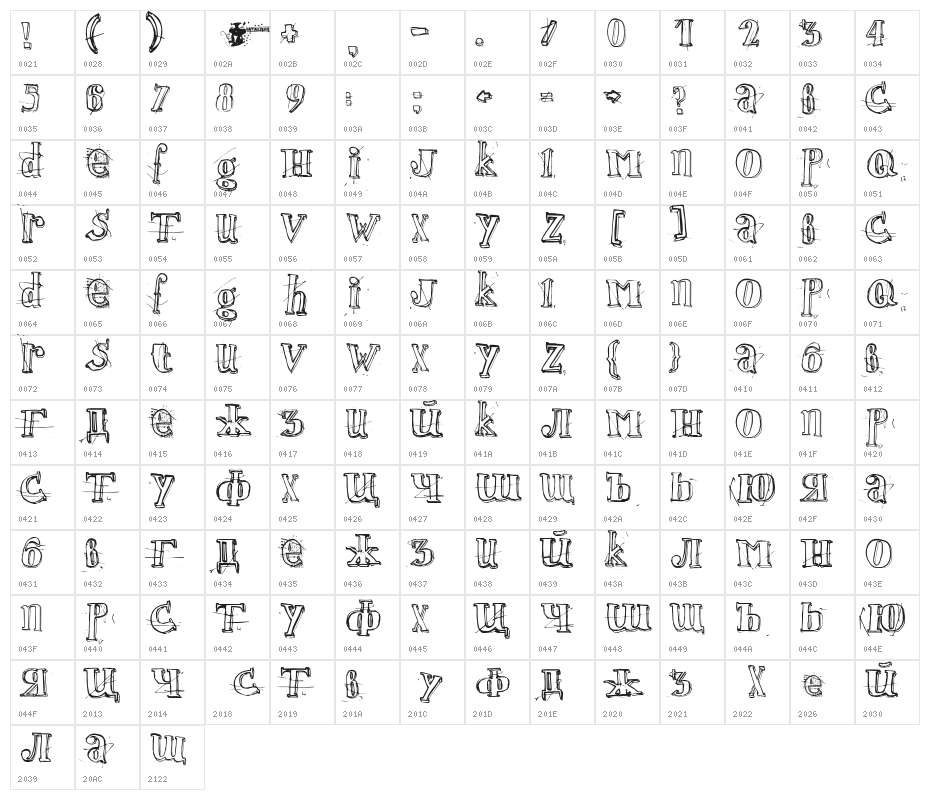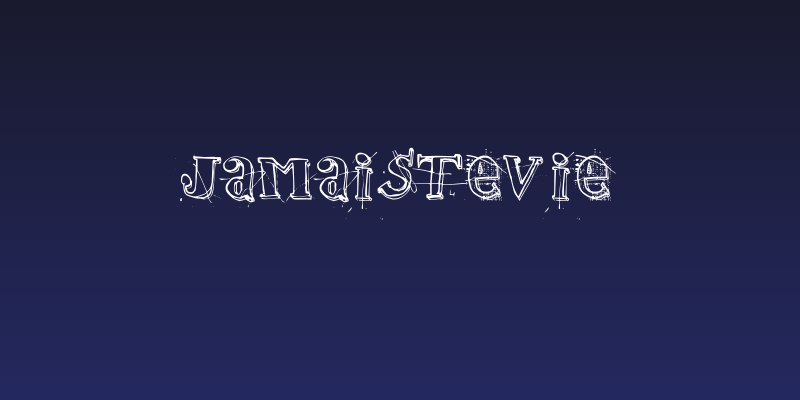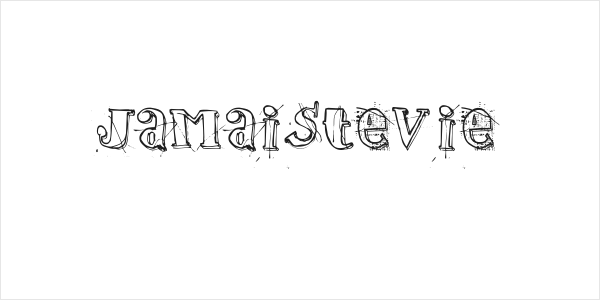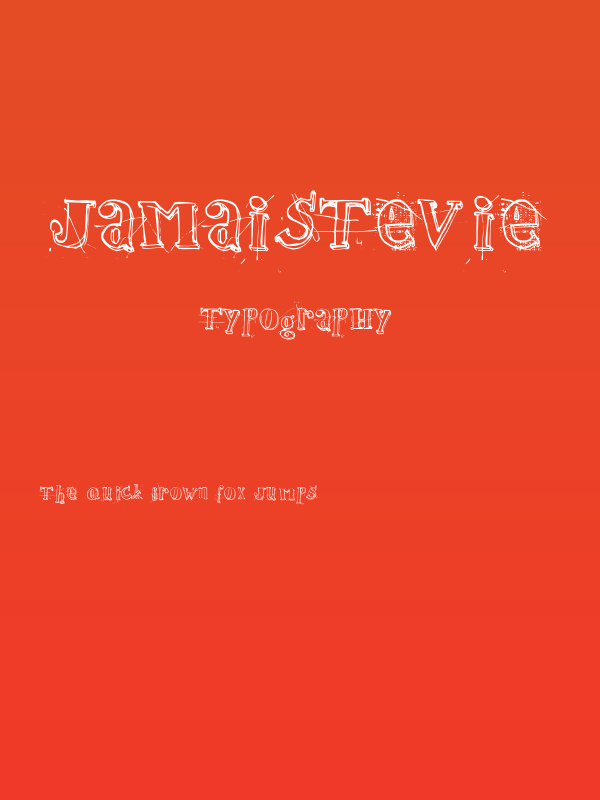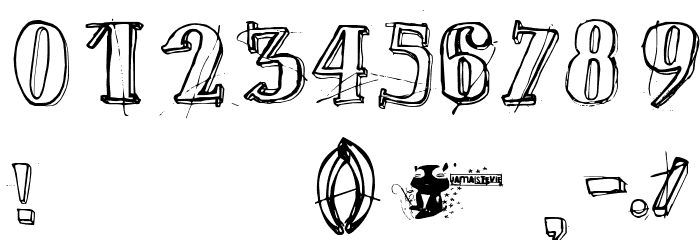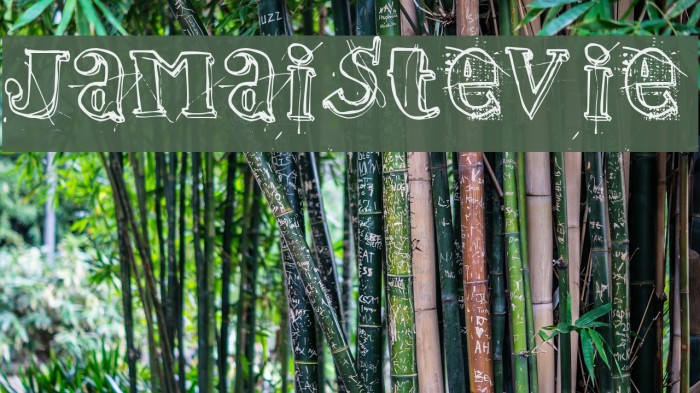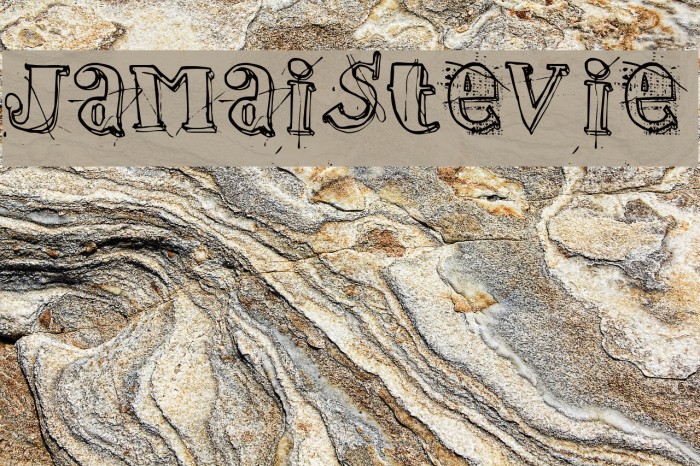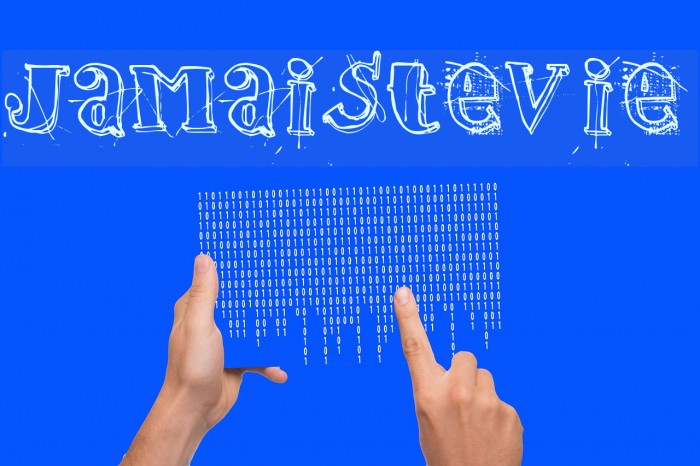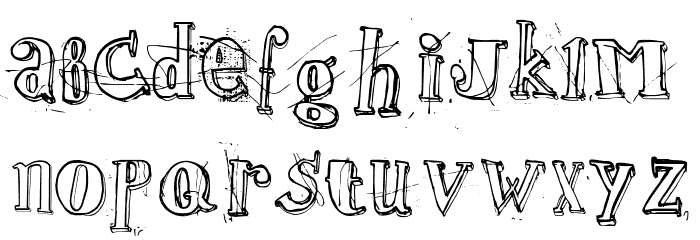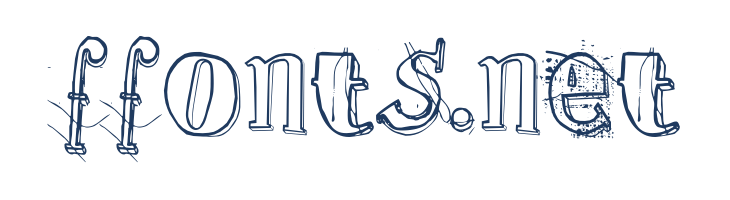
jamaistevie Font
This font features a unique, hand-drawn style with a sketch-like appearance. The letters are outlined with irregular, artistic strokes, giving them a rough, textured look. Each character has a playful, whimsical quality, with varying line thickness and a slightly distorted form that adds to its charm. The uppercase and lowercase letters maintain a consistent style, while the numbers and special characters follow the same artistic theme. This font's distinctive design makes it stand out, offering a creative and unconventional aesthetic.
| Overall Style | Artistic, Whimsical |
| Use Case | Headlines, Creative projects, Posters |
| Proposed Projects | Ideal for artistic projects, children's books, creative posters, and unique branding materials. |